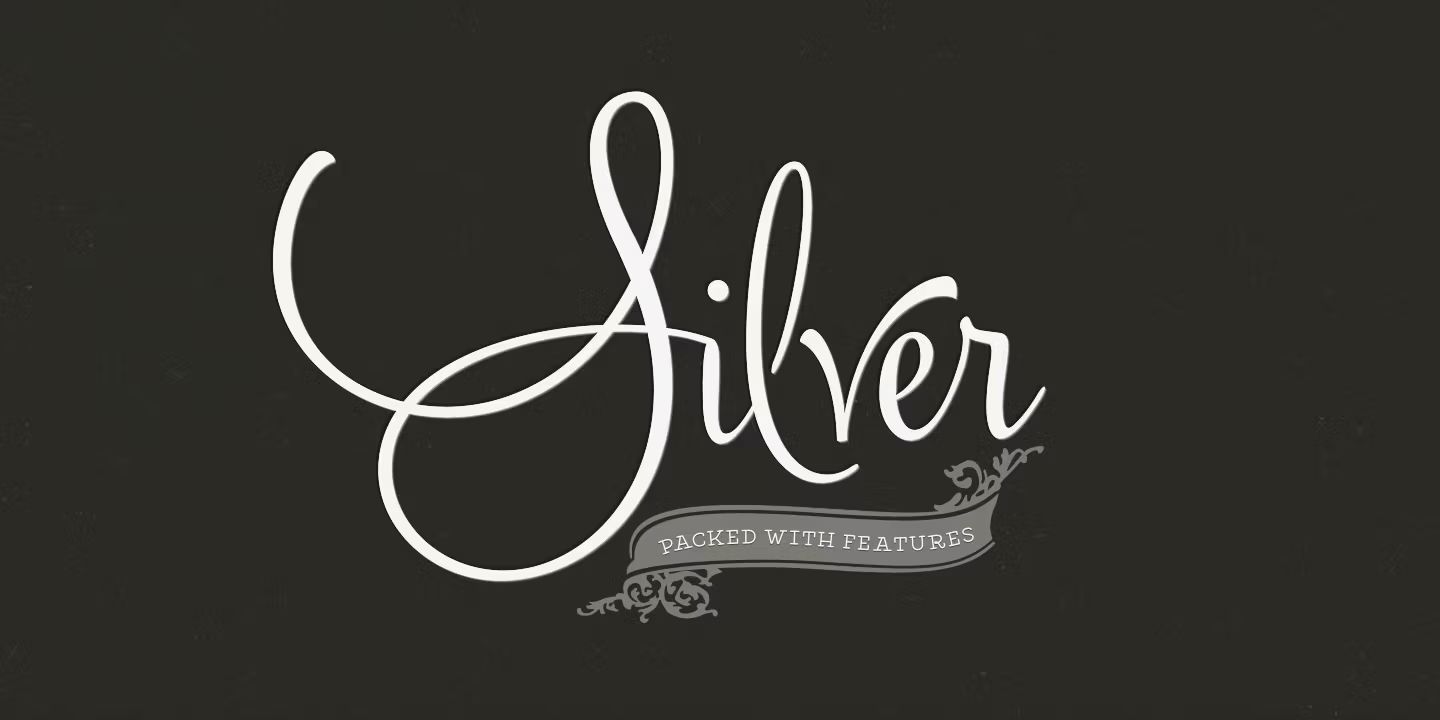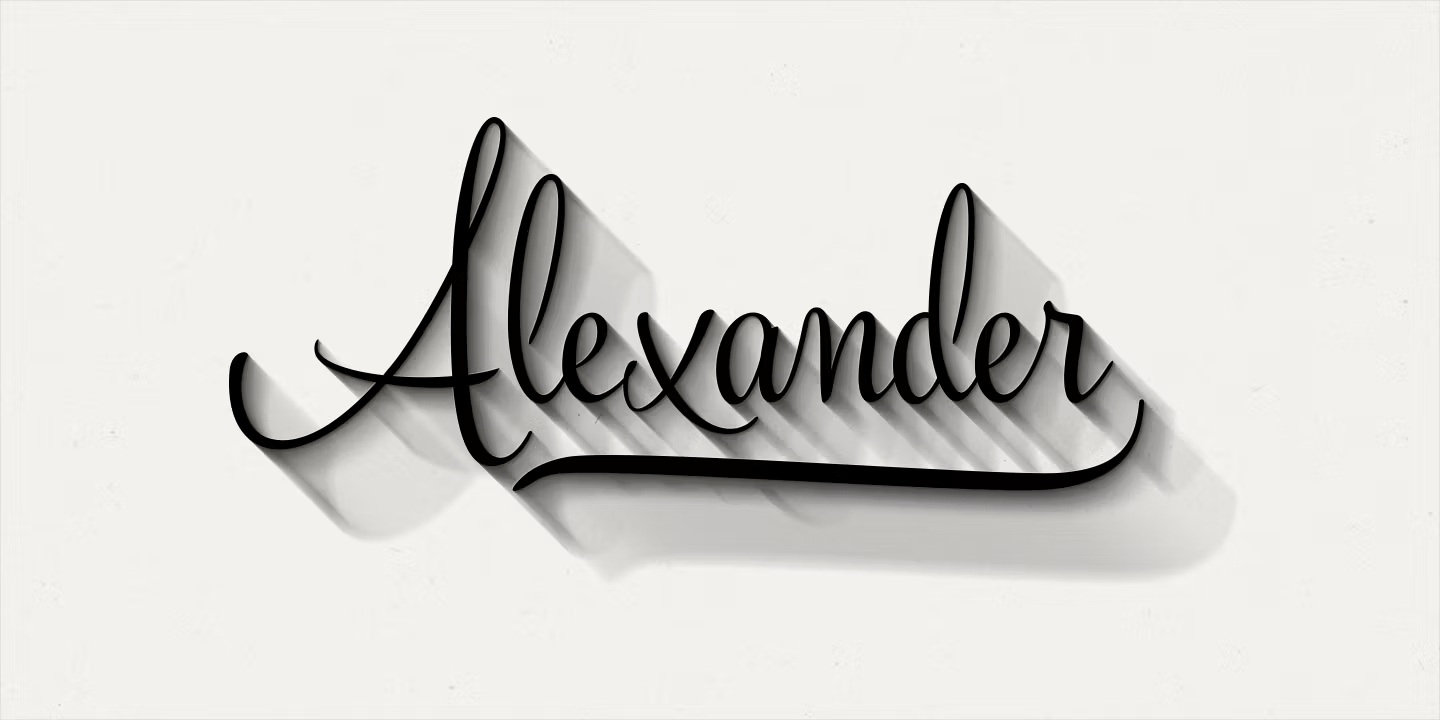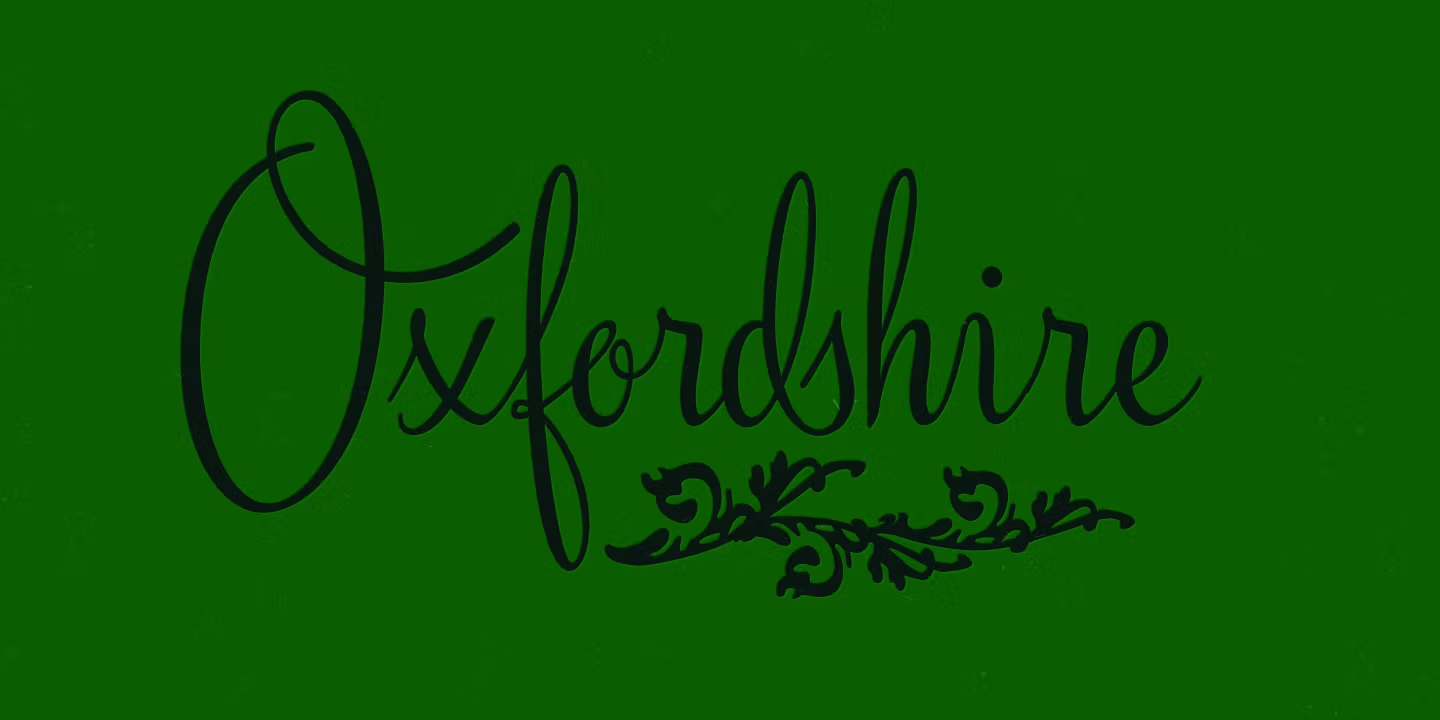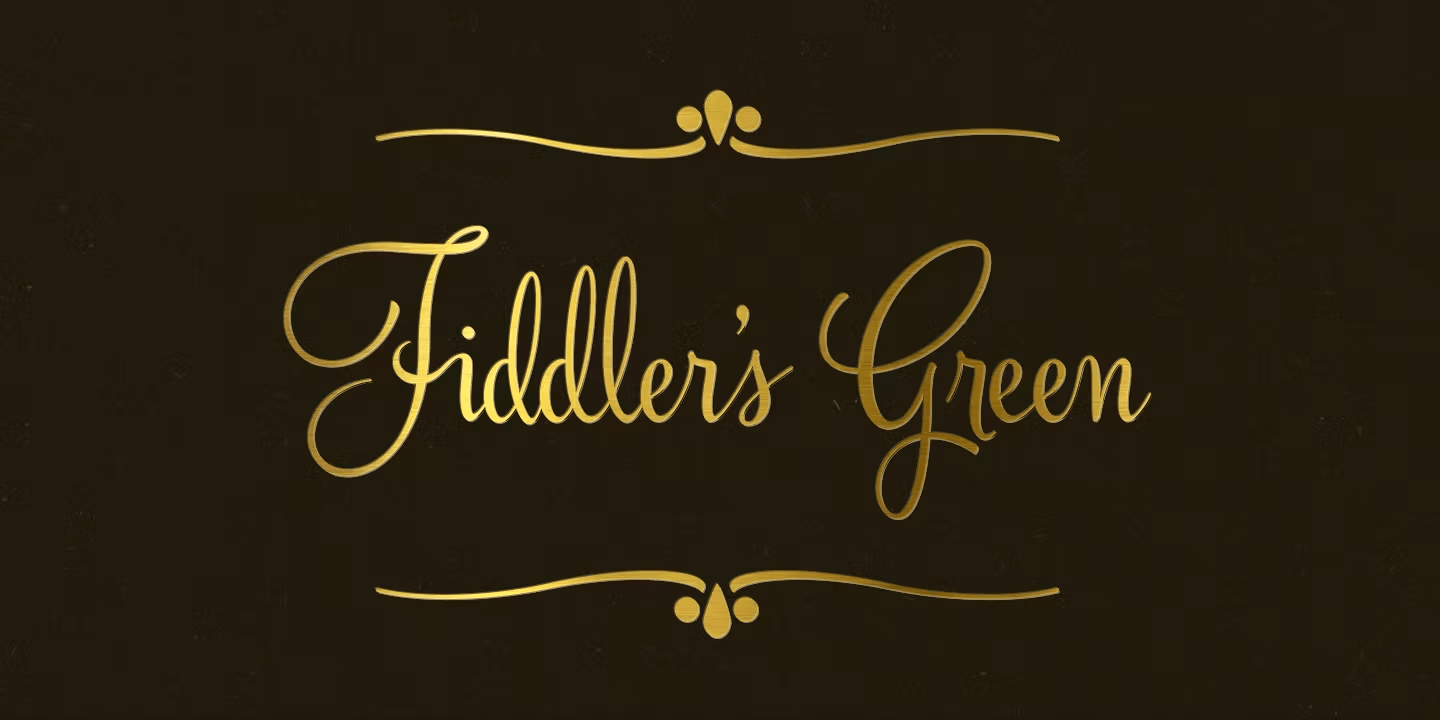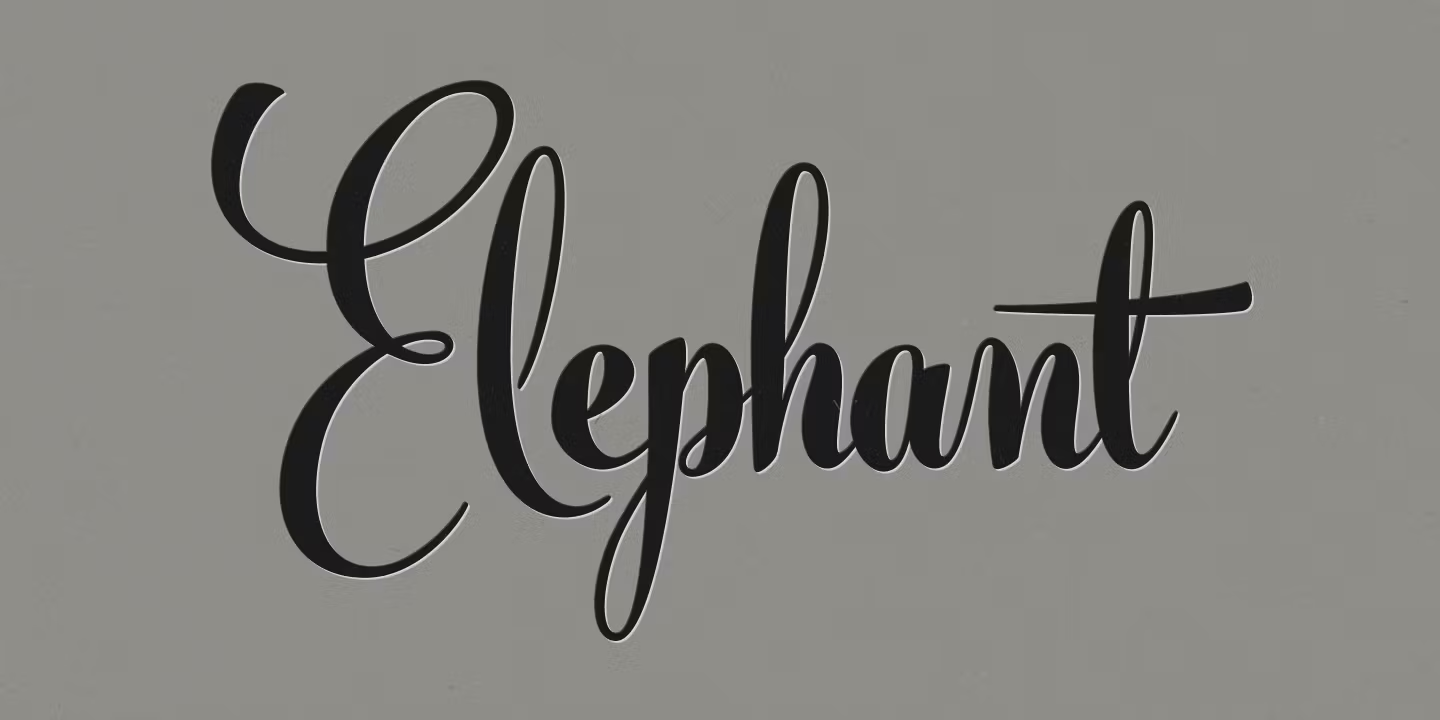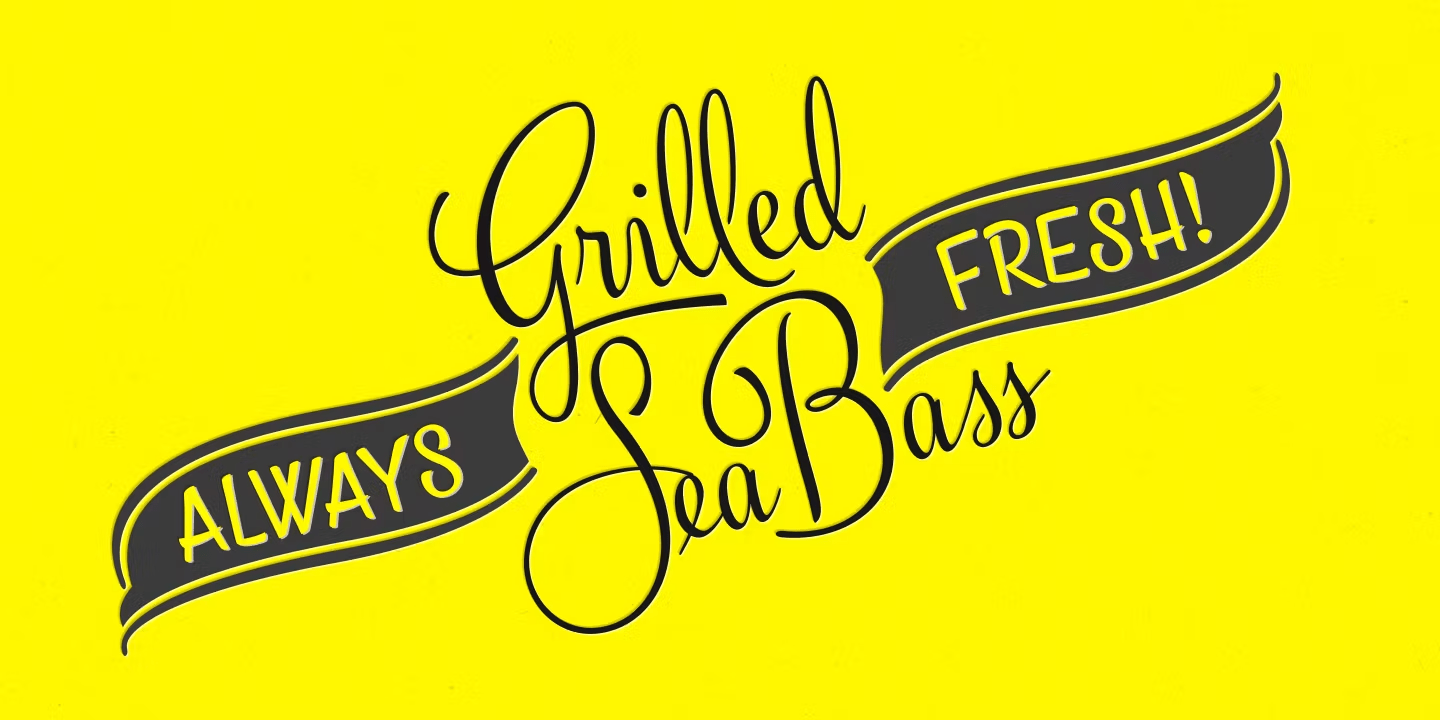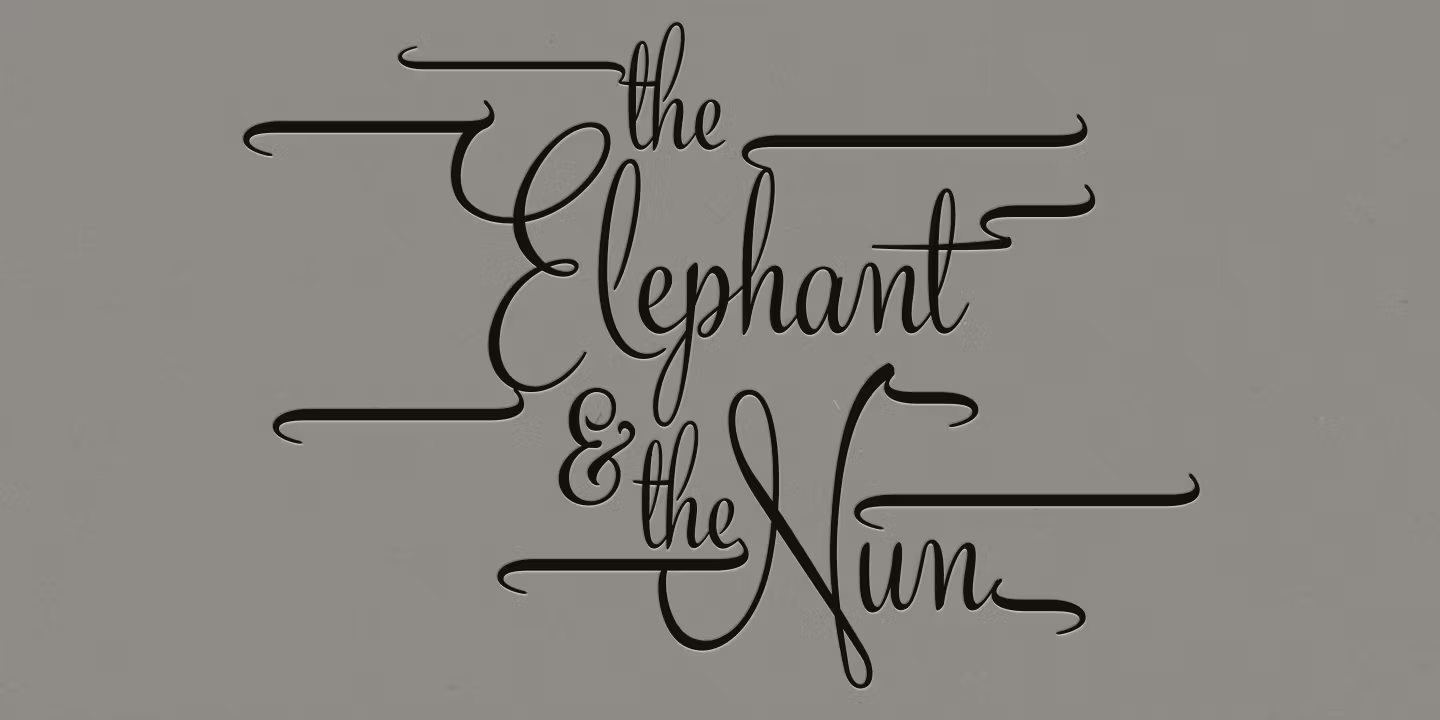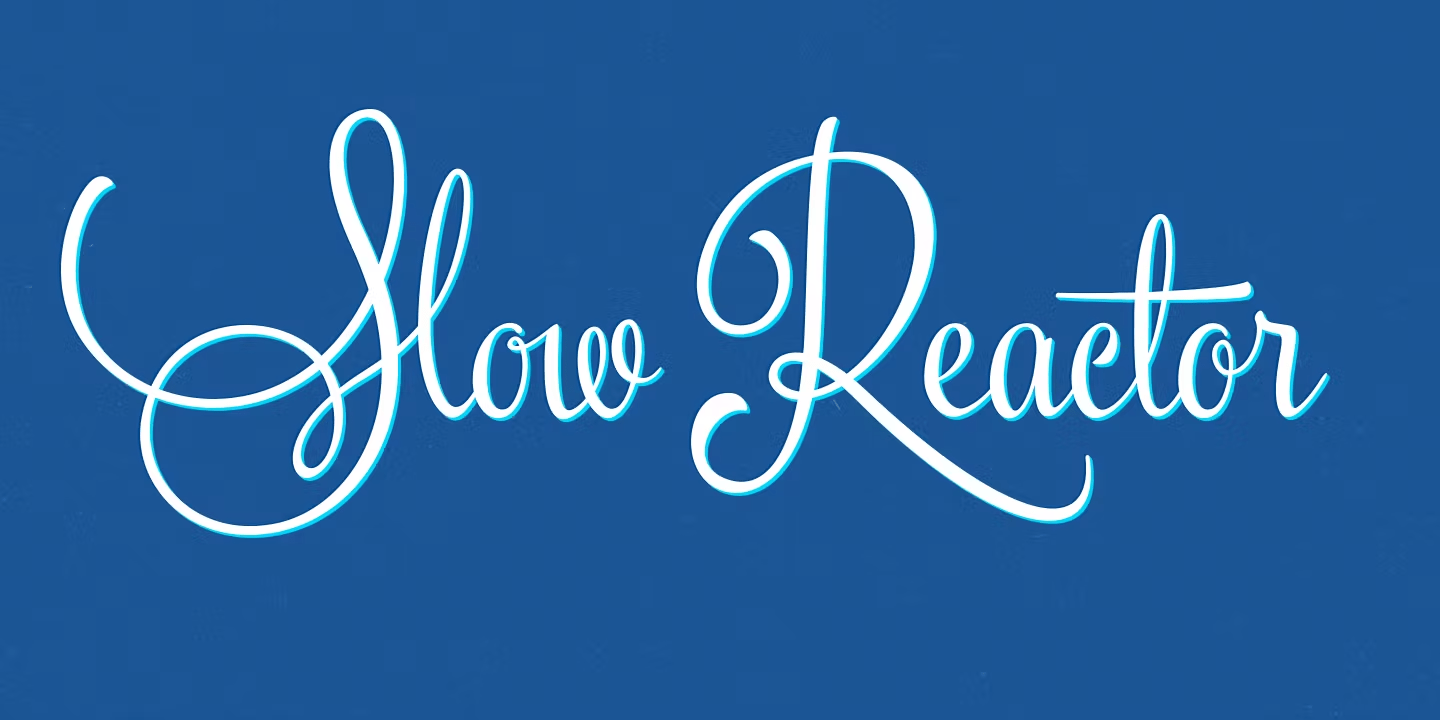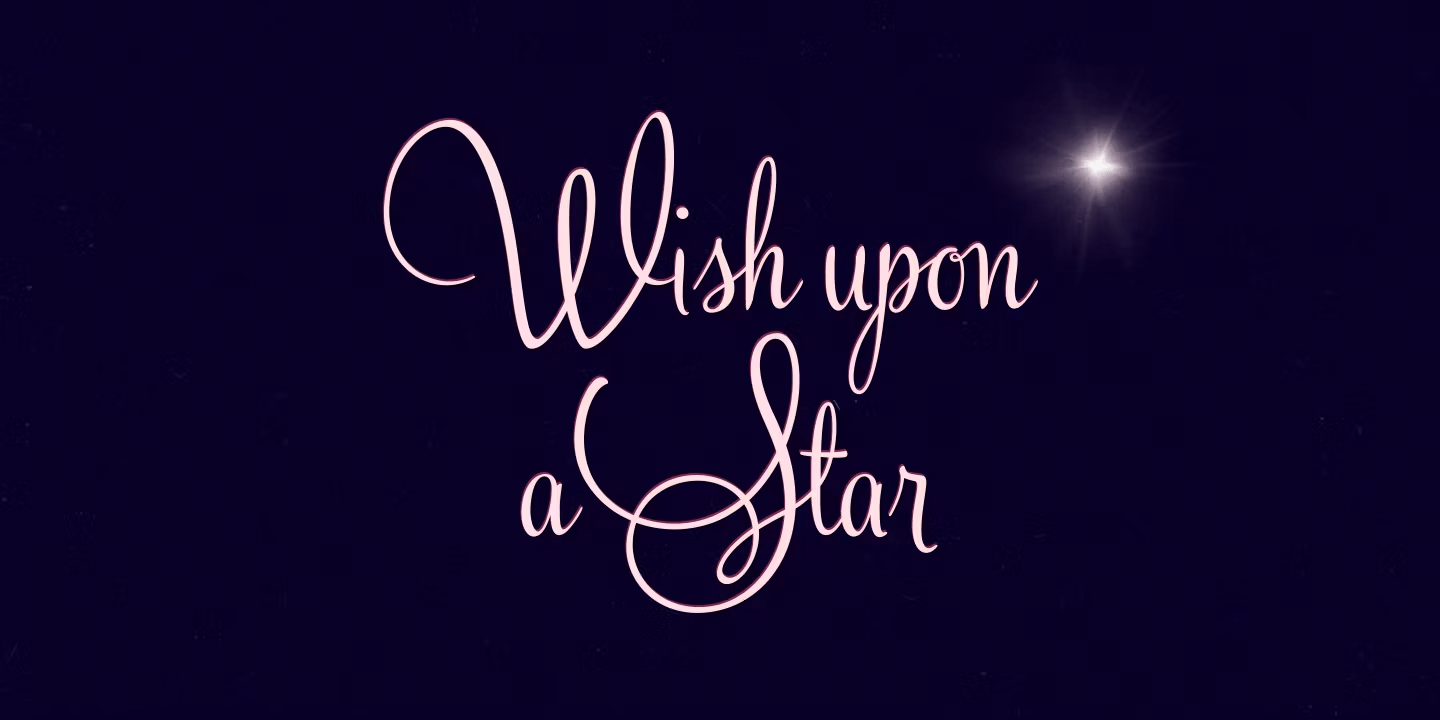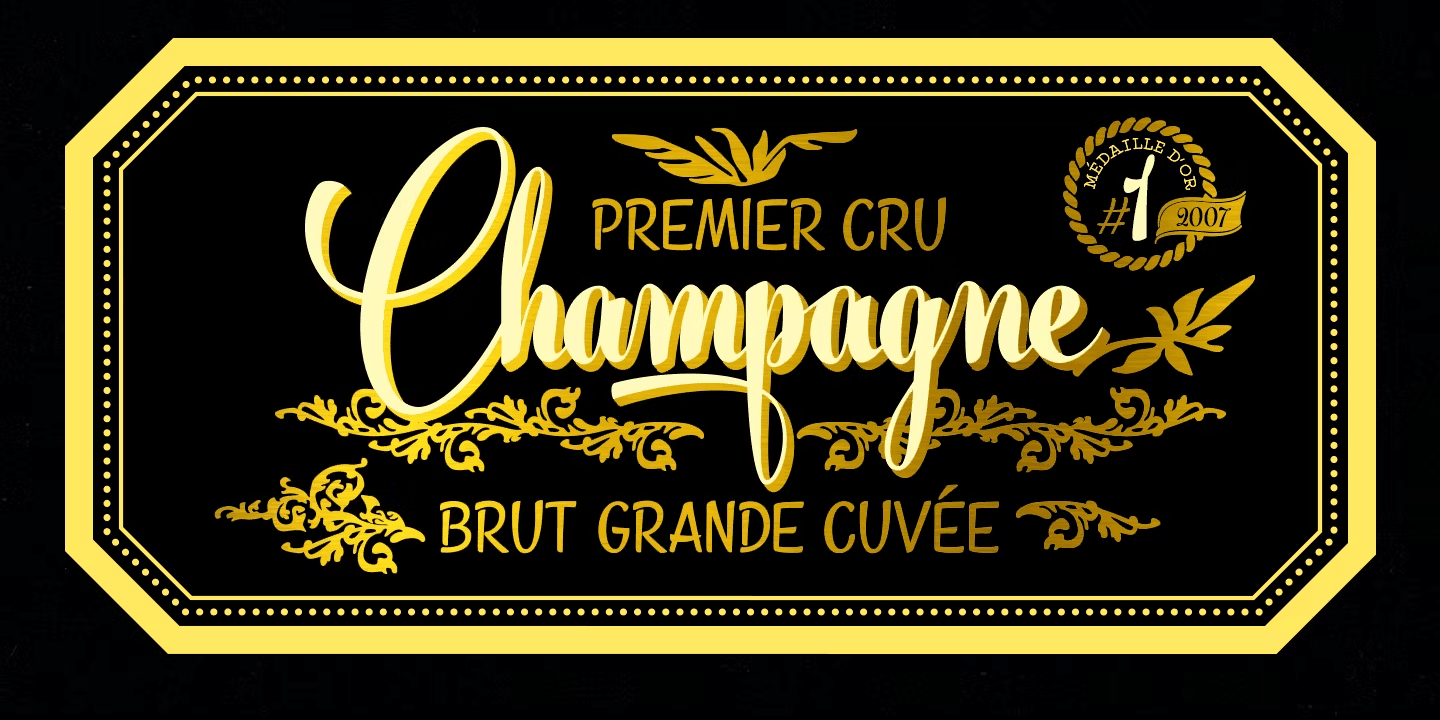
Silver
Silver is a clean and elegant connected script. Silver is packed with more than 1000 glyphs. Click on Swash, Stylistic or Titling Alternates or manually choose from Glyph Palette from even more alternate characters. Keep on Standard Ligatures for maximum smoothness.
Silver is best used on creating elegant headlines, logos & posters for packaging and branding purposes.